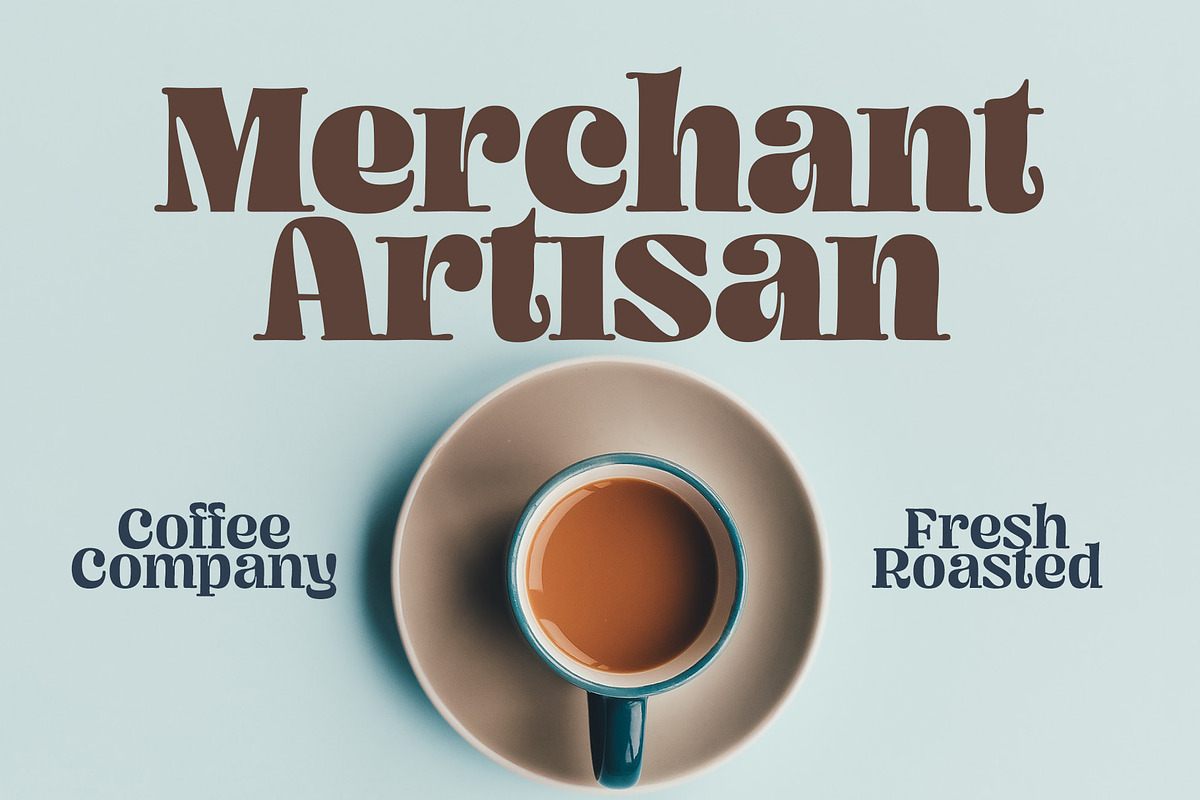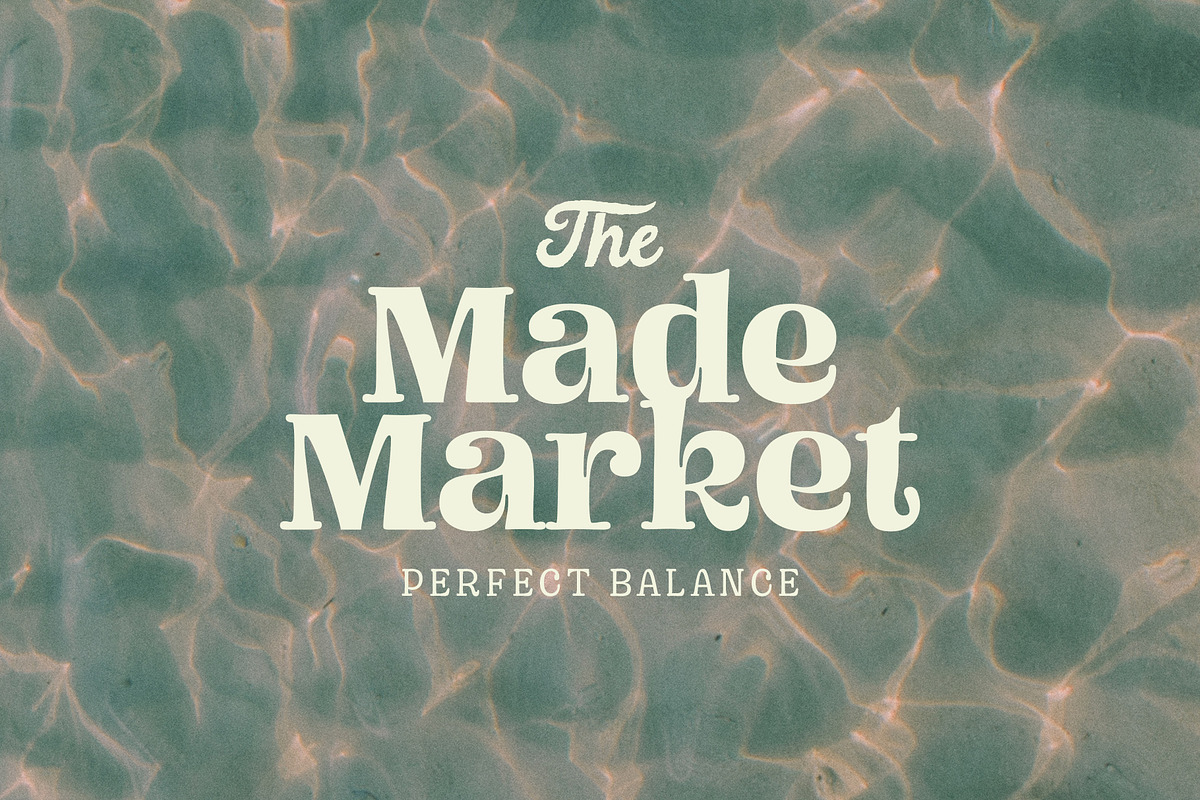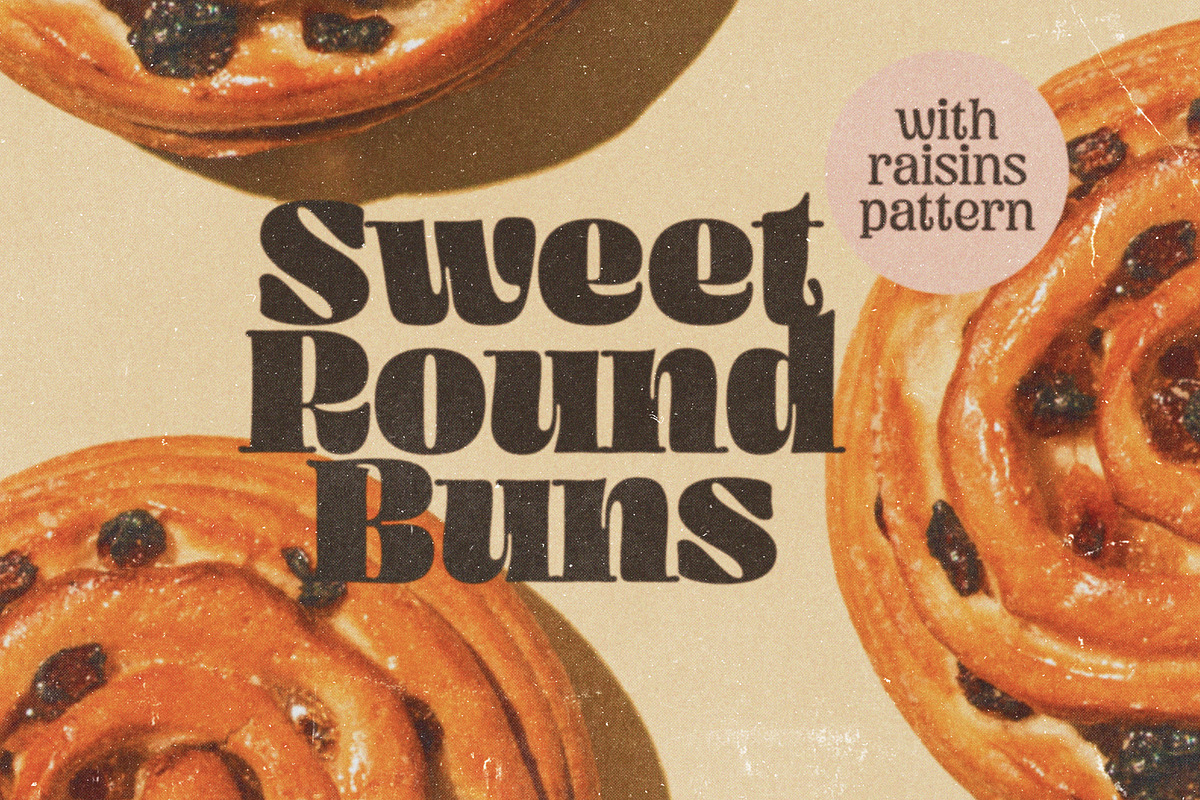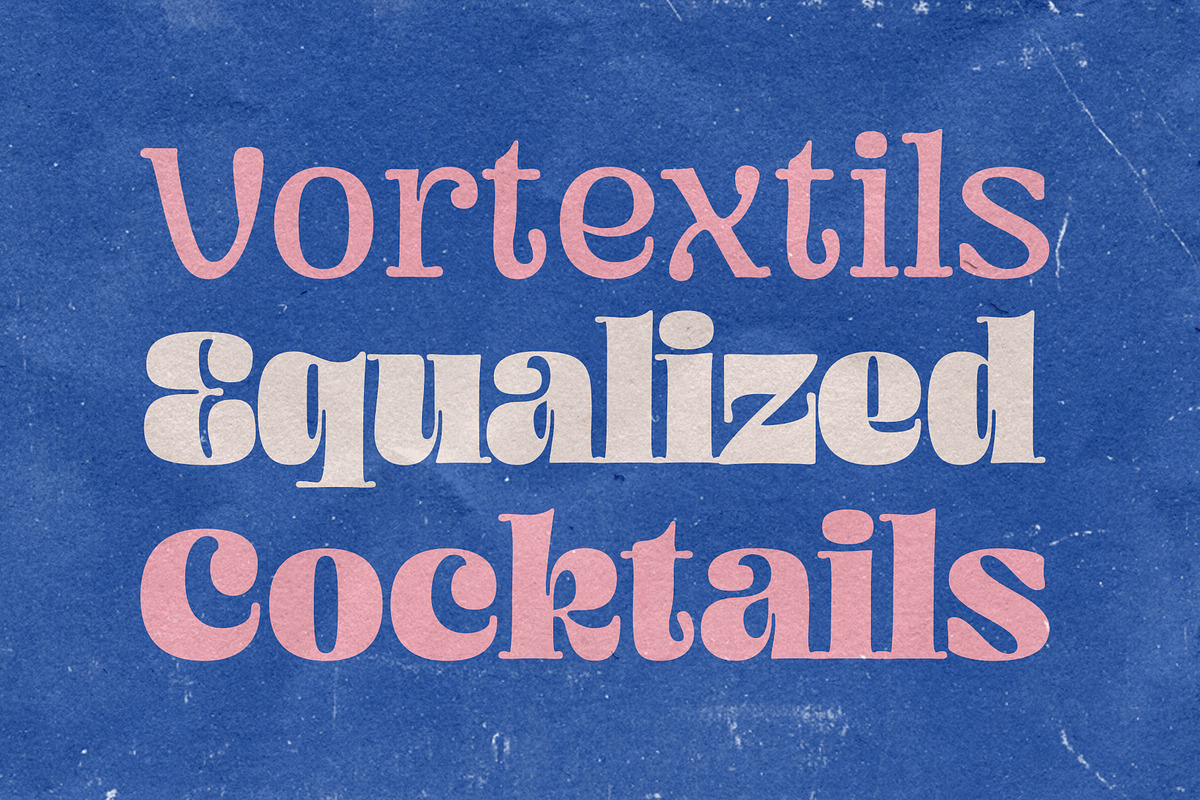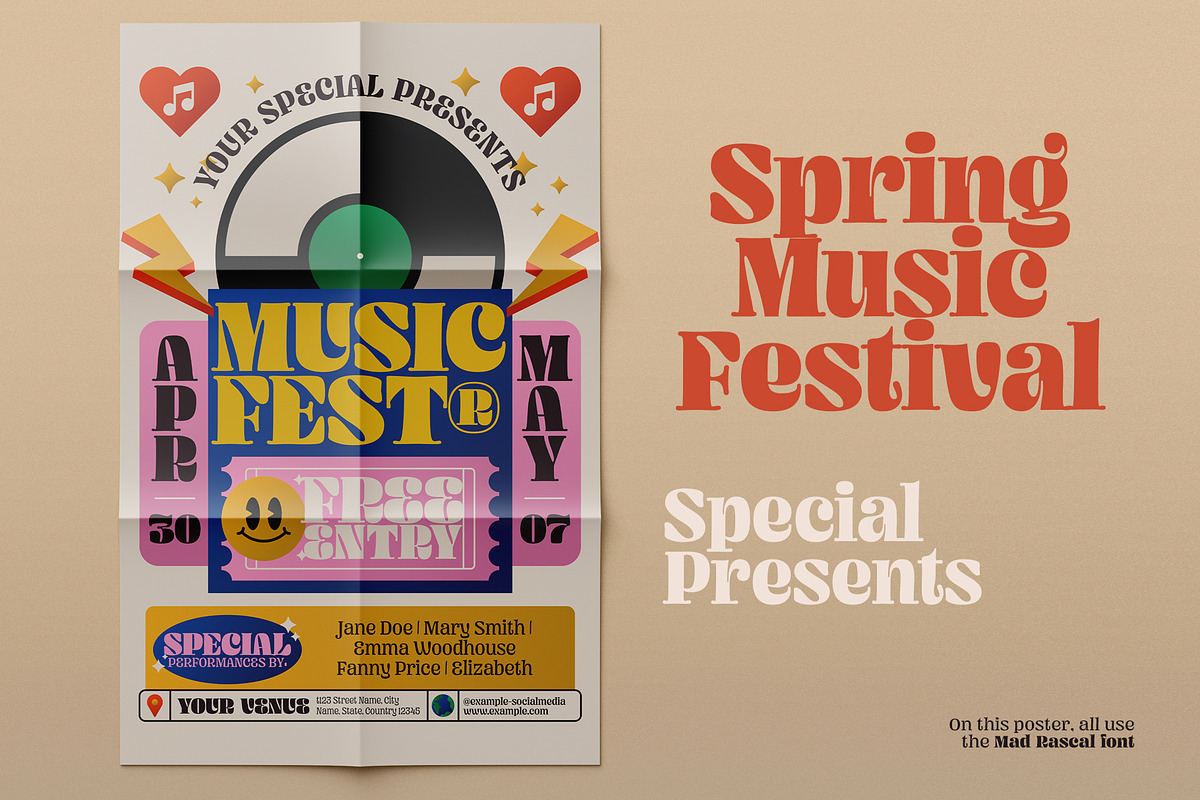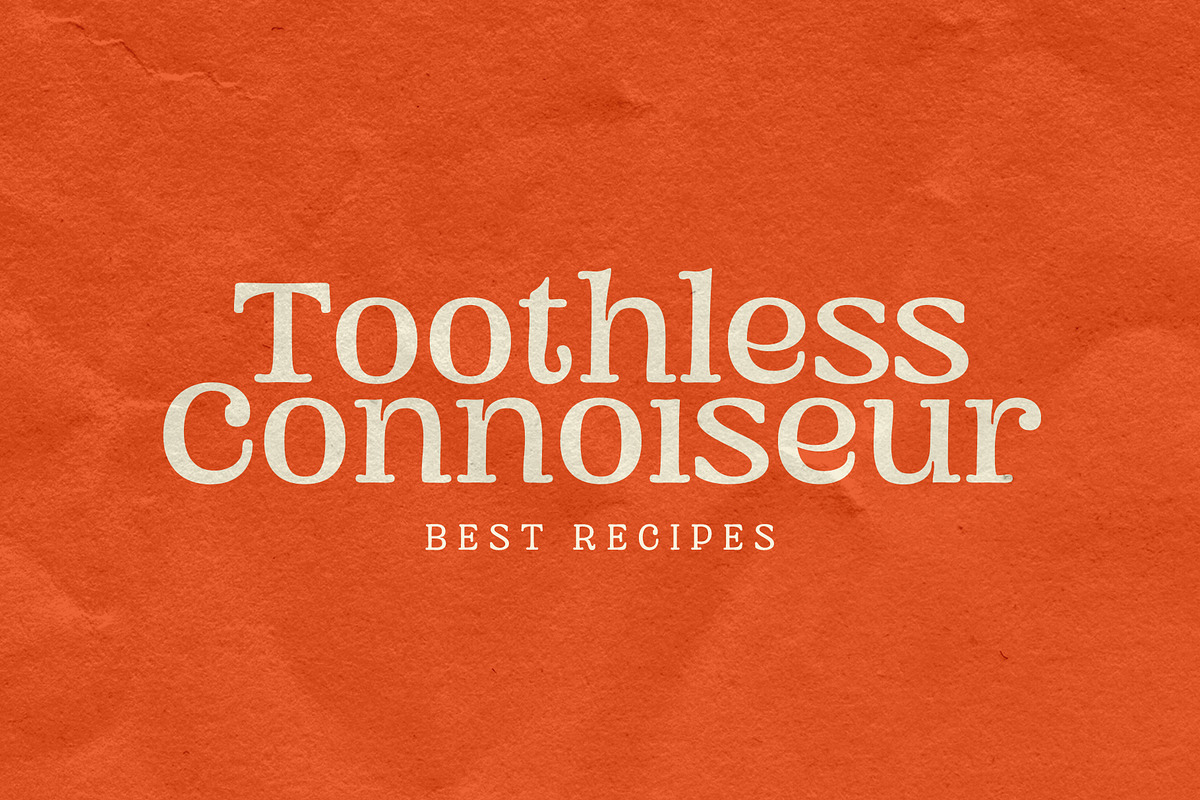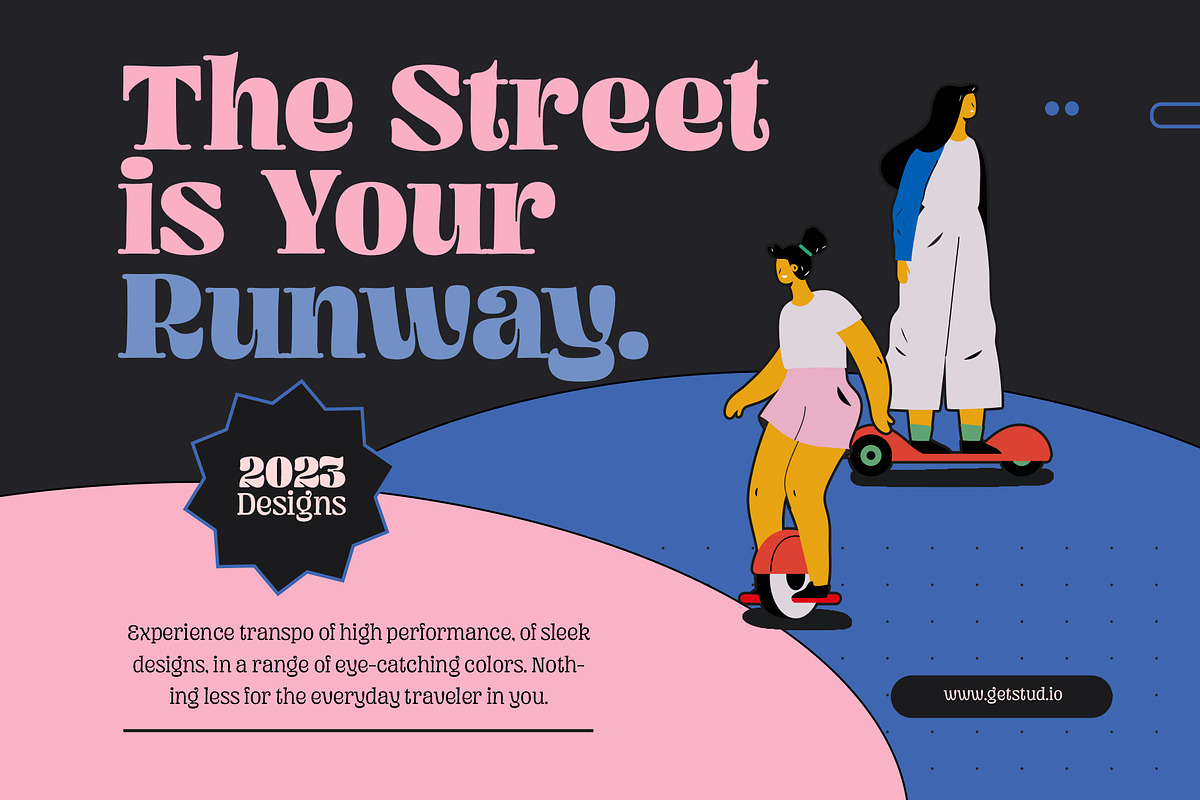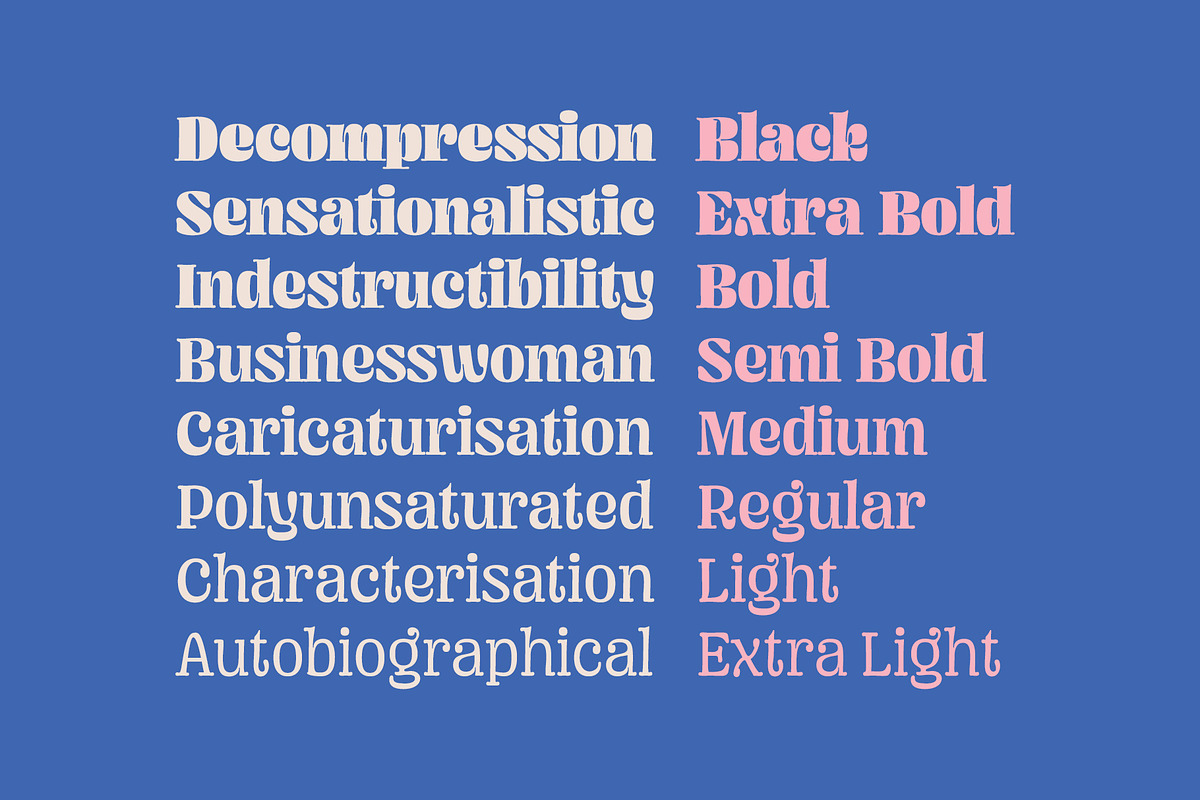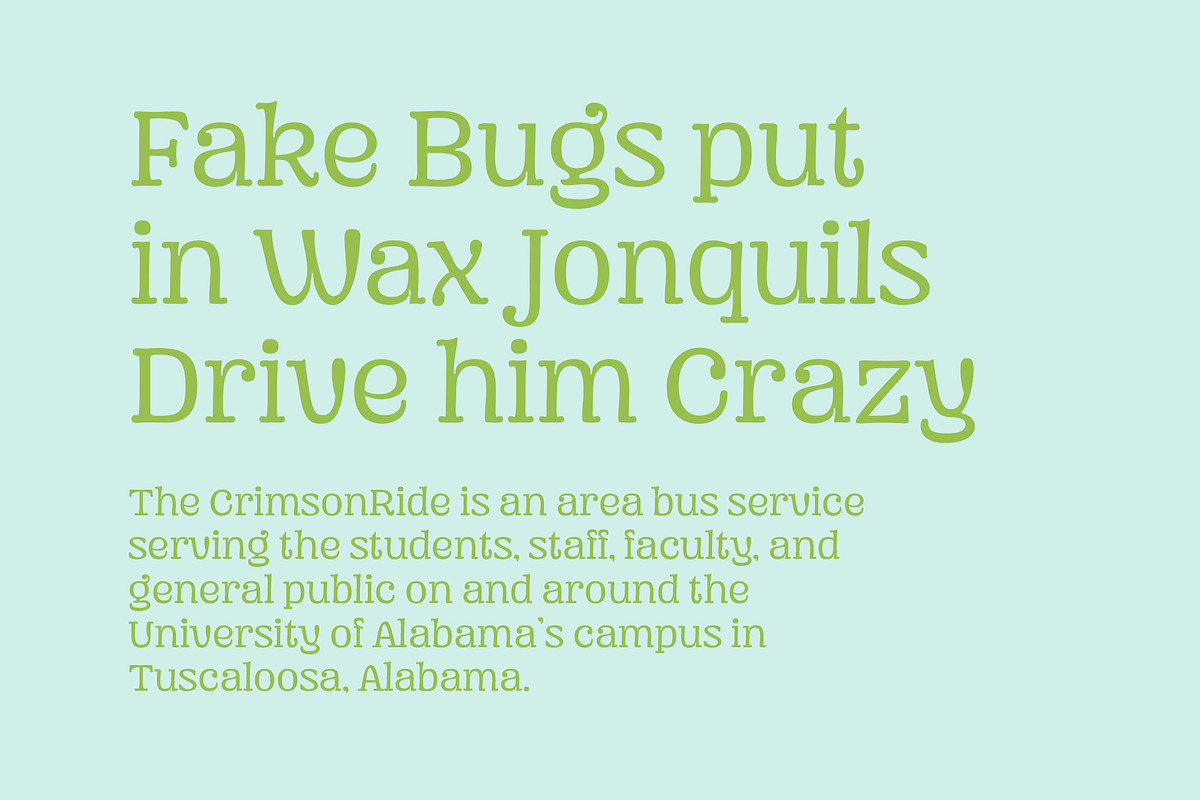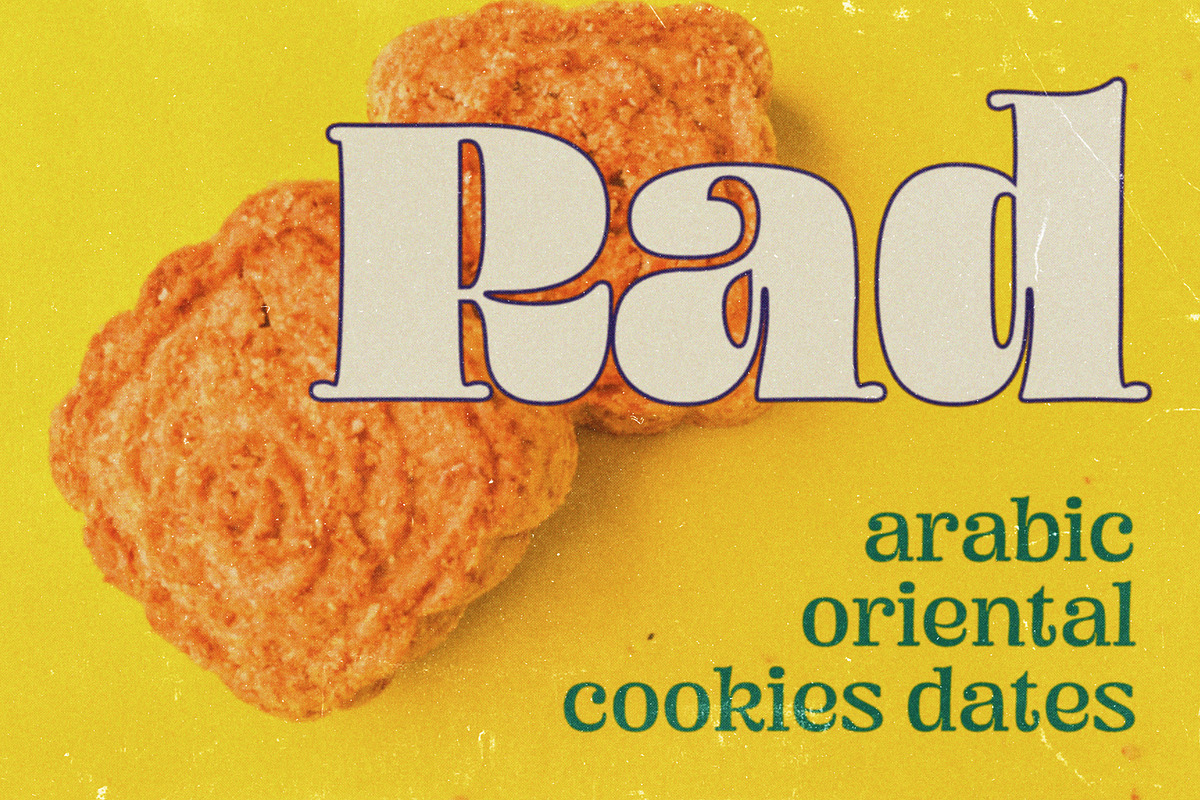
Mad Rascal - Font Family
Mad Rascal is an Extra Bold display serif with large and soft inktrap. It comes with 24 styles and Variable support.
It’s ready to make a lasting impression on your merchandise, quote designs, header text, logos & branding, advertisements, and much more.